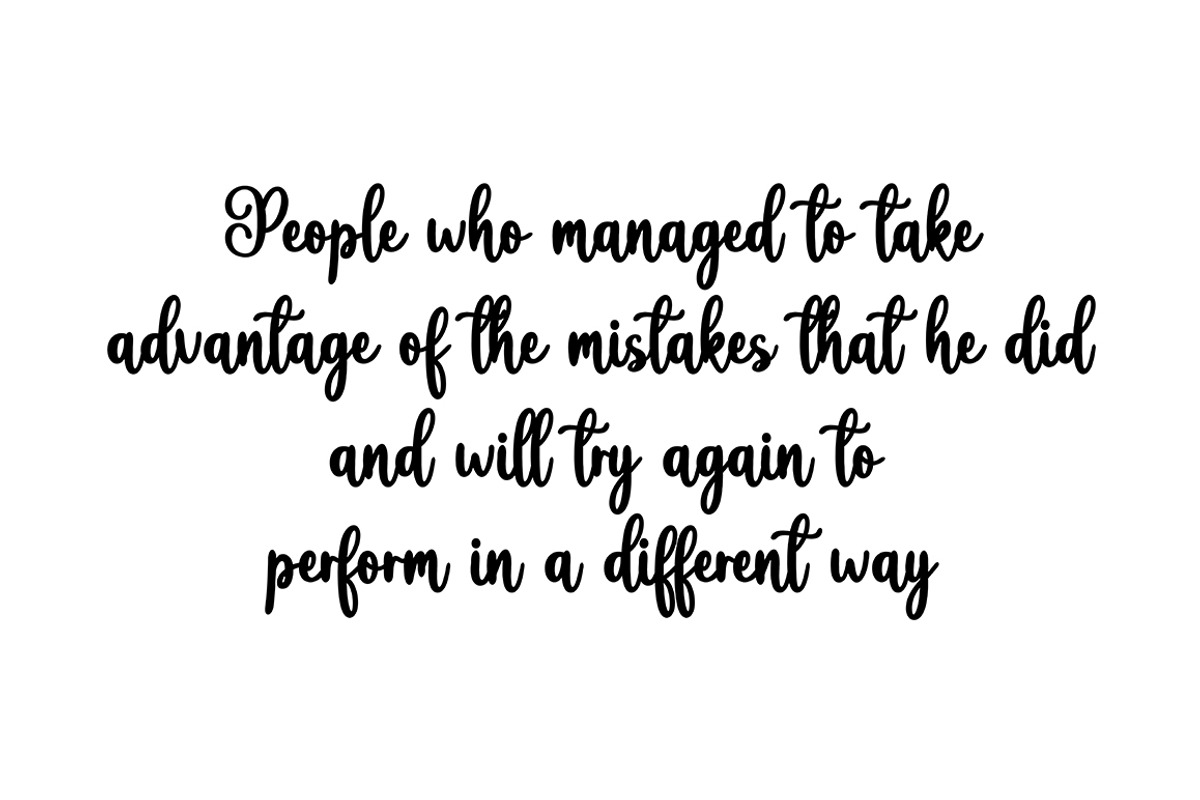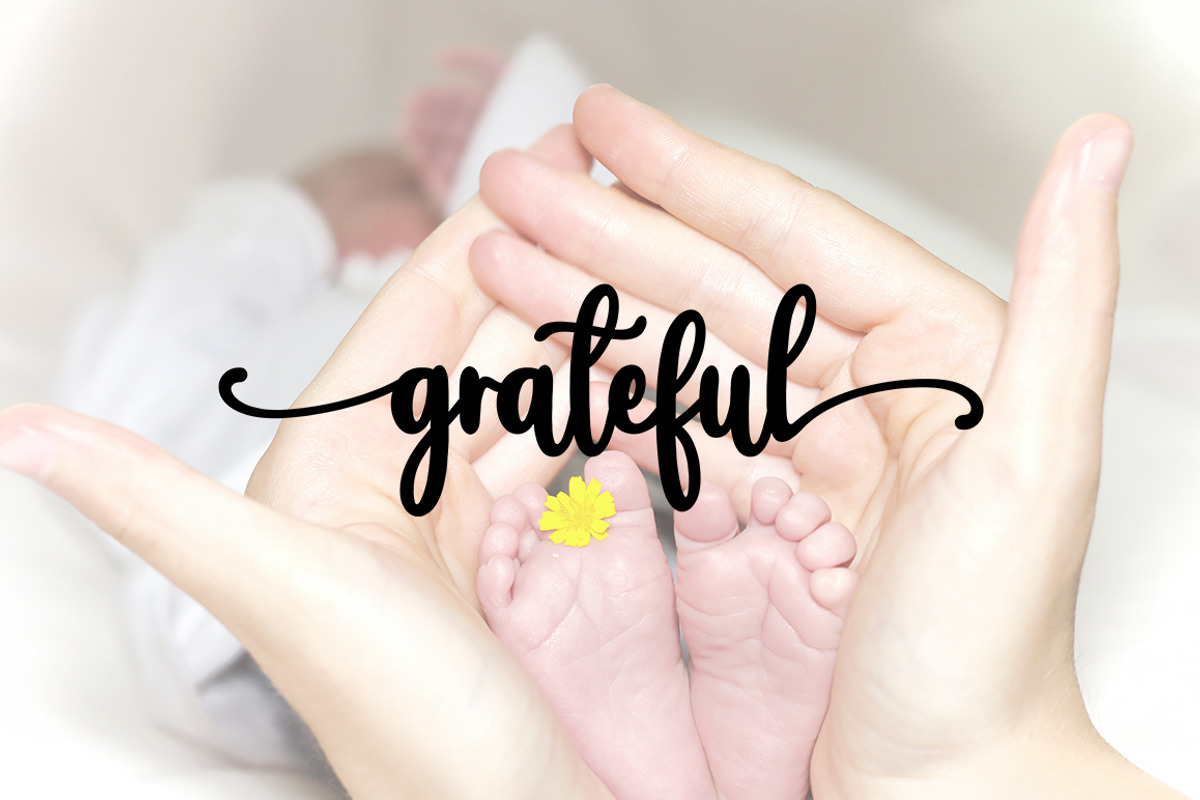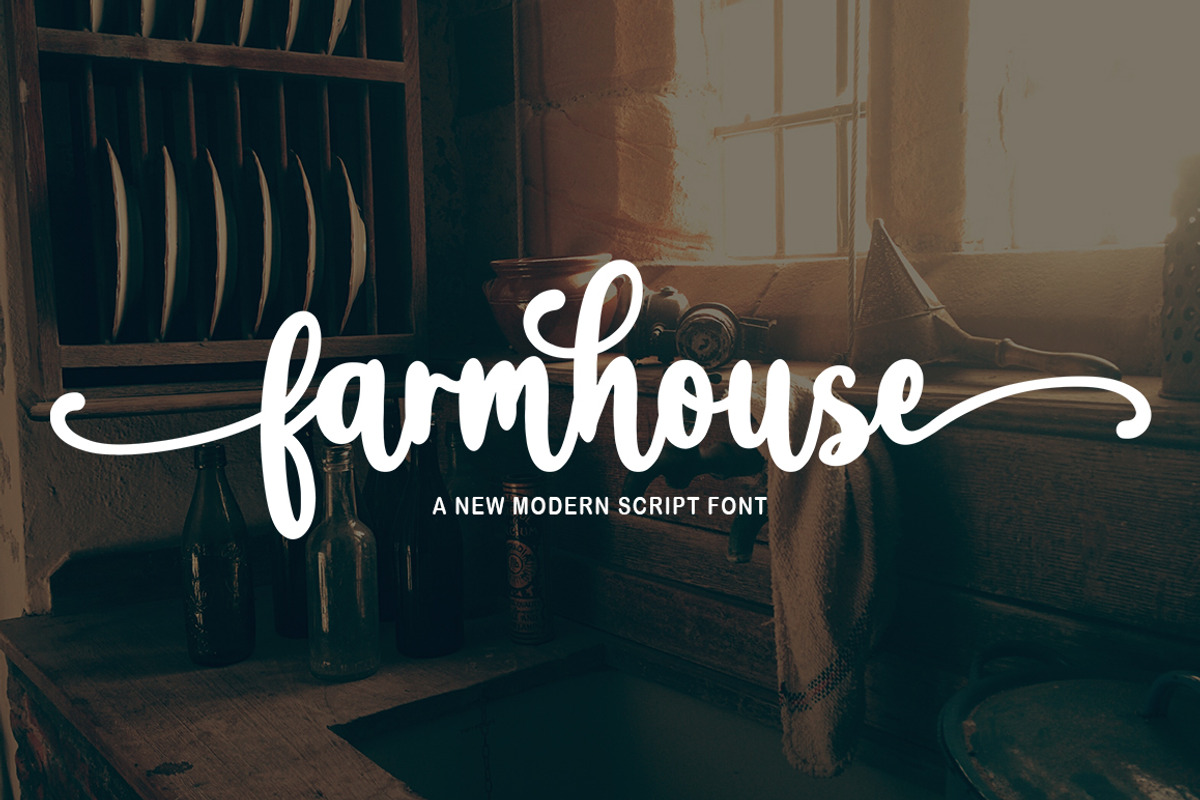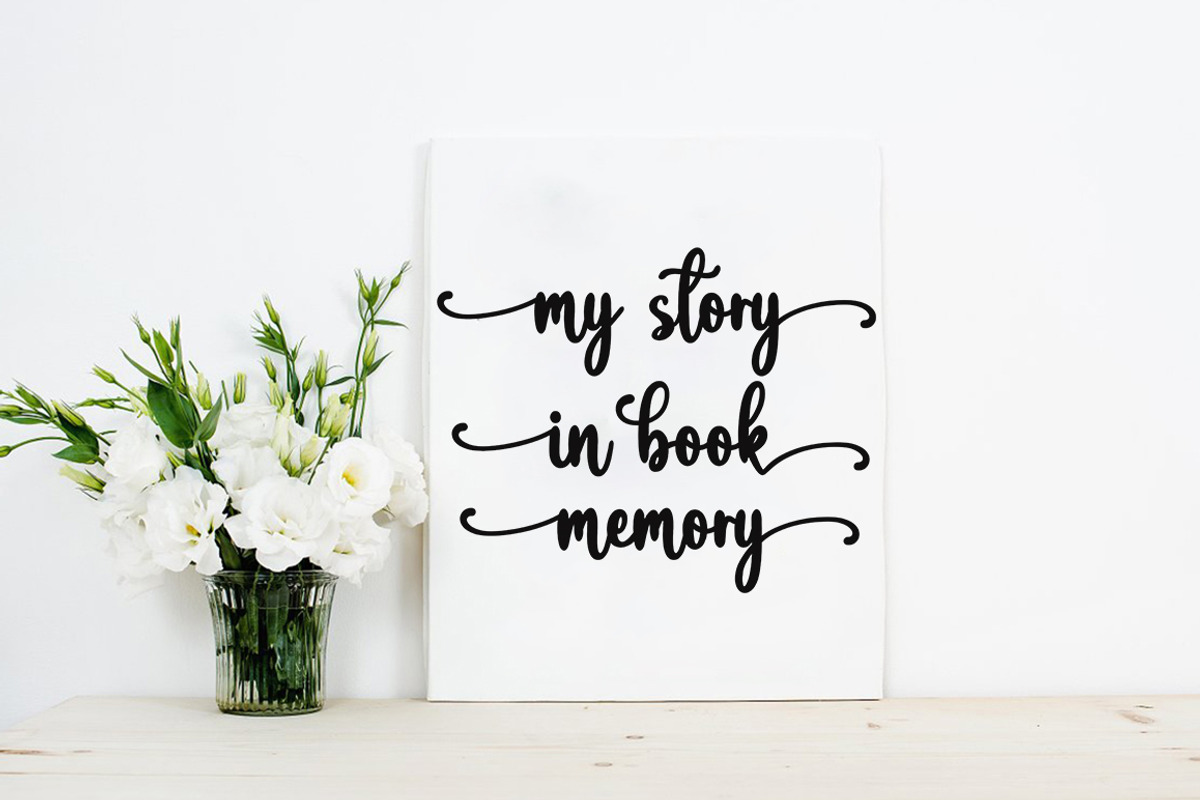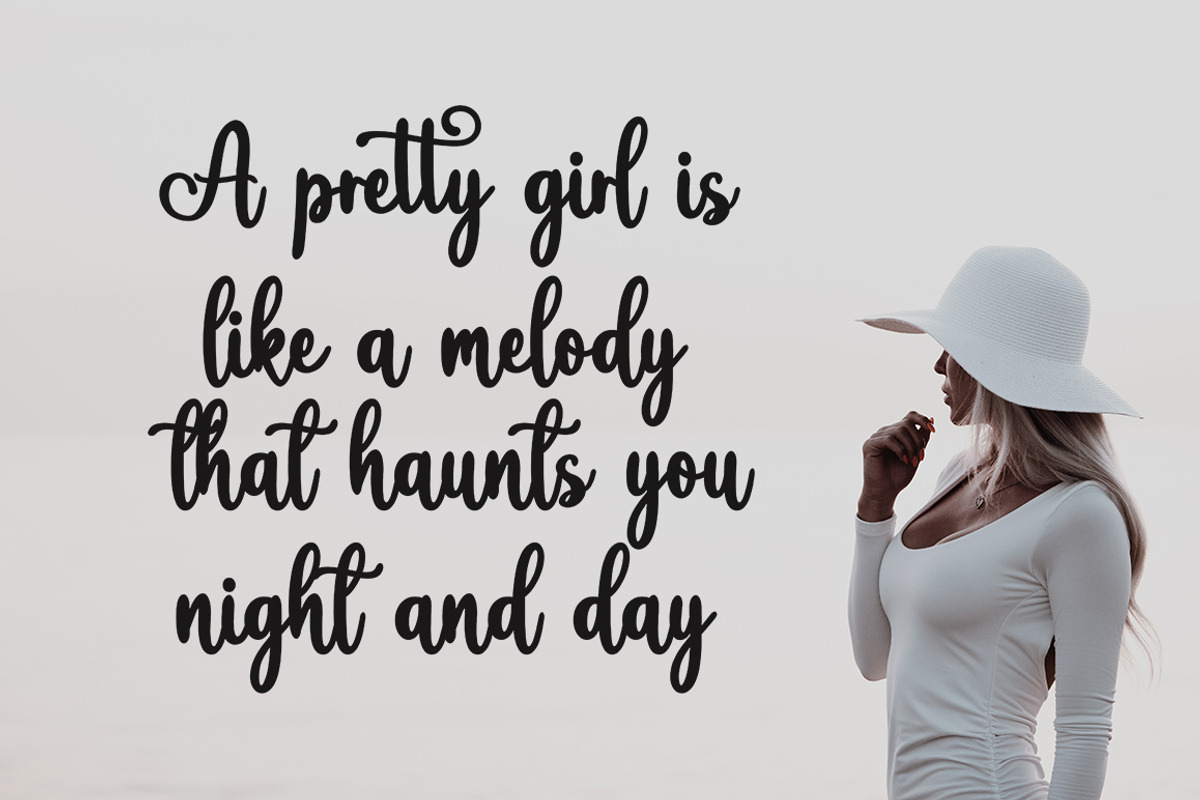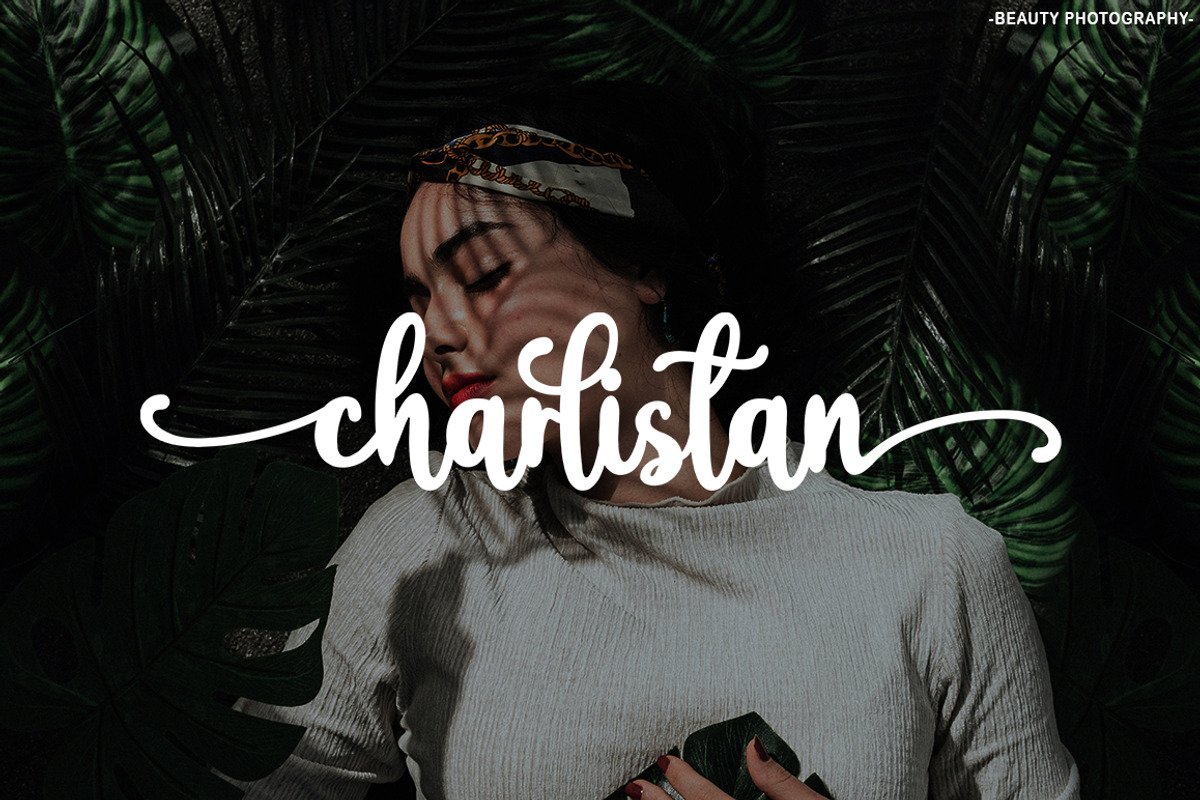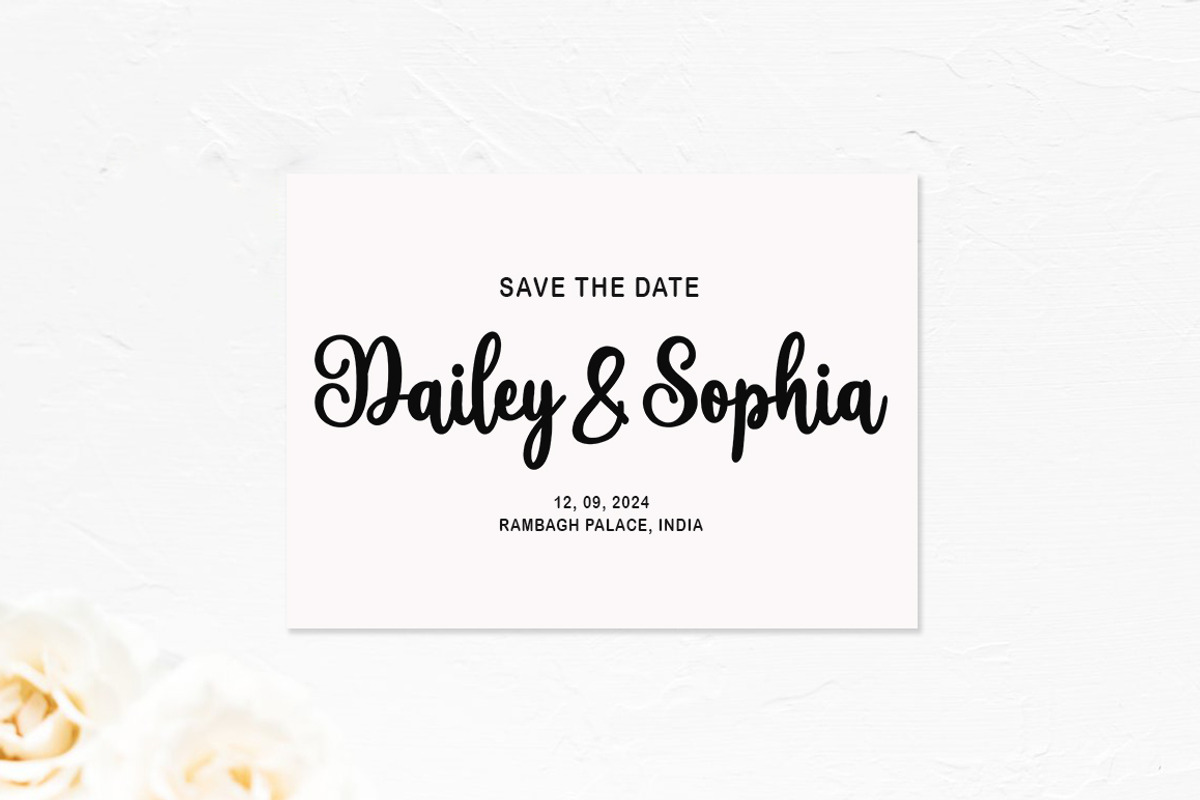
Farmhouse Script
Farmhouse Modern Calligraphy. This font was designed by handwriting, and it has a modern and unique forms of calligraphy, the writing style is very natural.
The Features of this fonts is;
Standart ligatures
Contextual Alternates
Stylistic sets